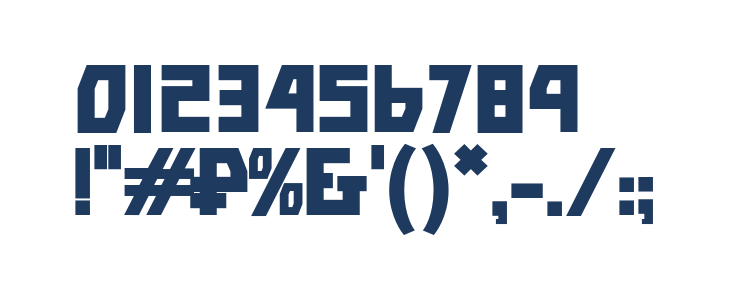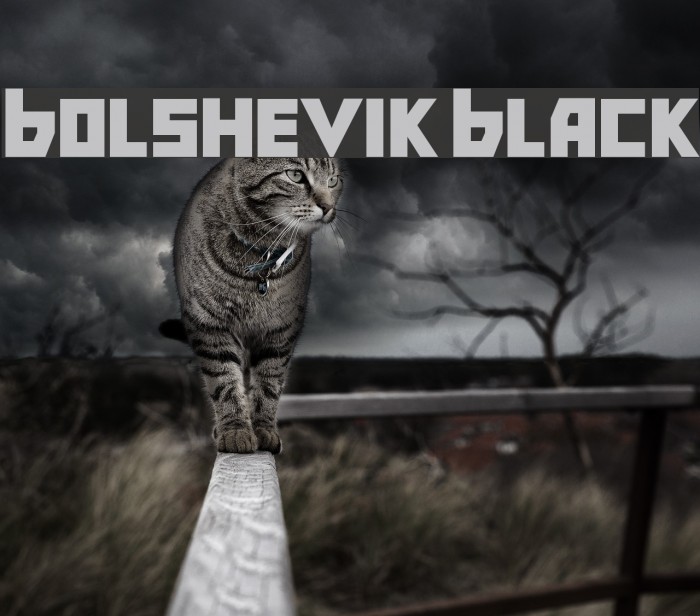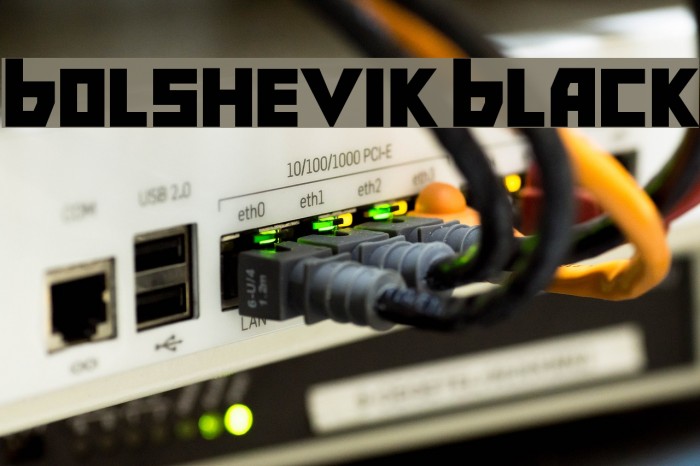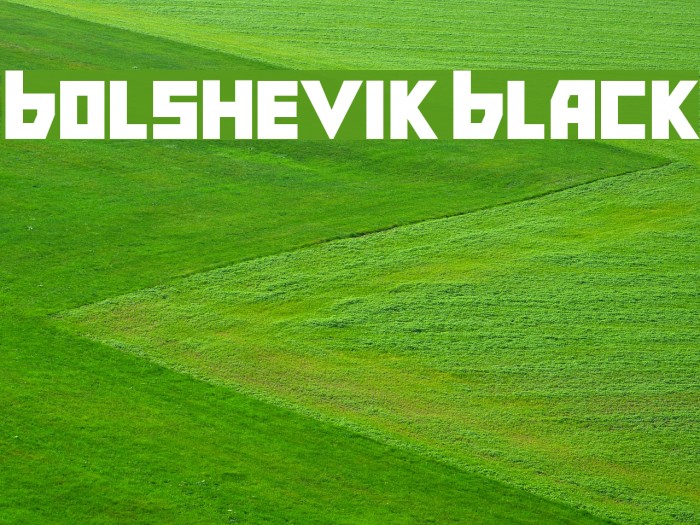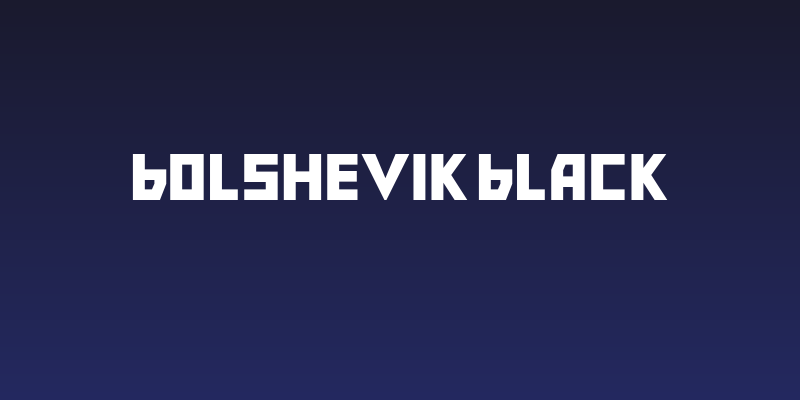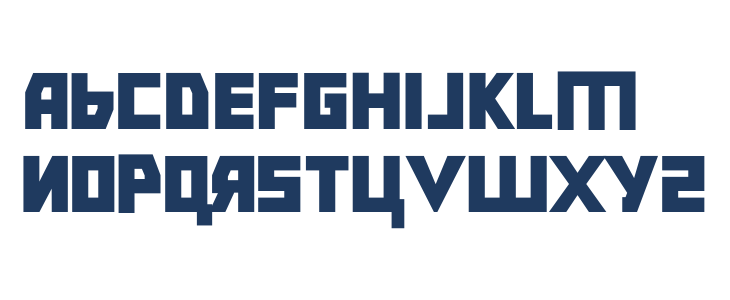
Bolshevik Black Font
Bolshevik Black Description
This font features a bold, geometric design with strong, angular lines and a blocky appearance. The characters are uniformly thick, creating a sense of solidity and strength. The uppercase letters are particularly striking, with sharp edges and a modern, industrial feel. The numerals and special characters maintain this robust style, making the font suitable for impactful and attention-grabbing designs. Its unique aesthetic is reminiscent of constructivist art, offering a sense of boldness and authority.
| Proposed Projects | Ideal for posters, logos, branding, and any design requiring a strong, impactful presence. |